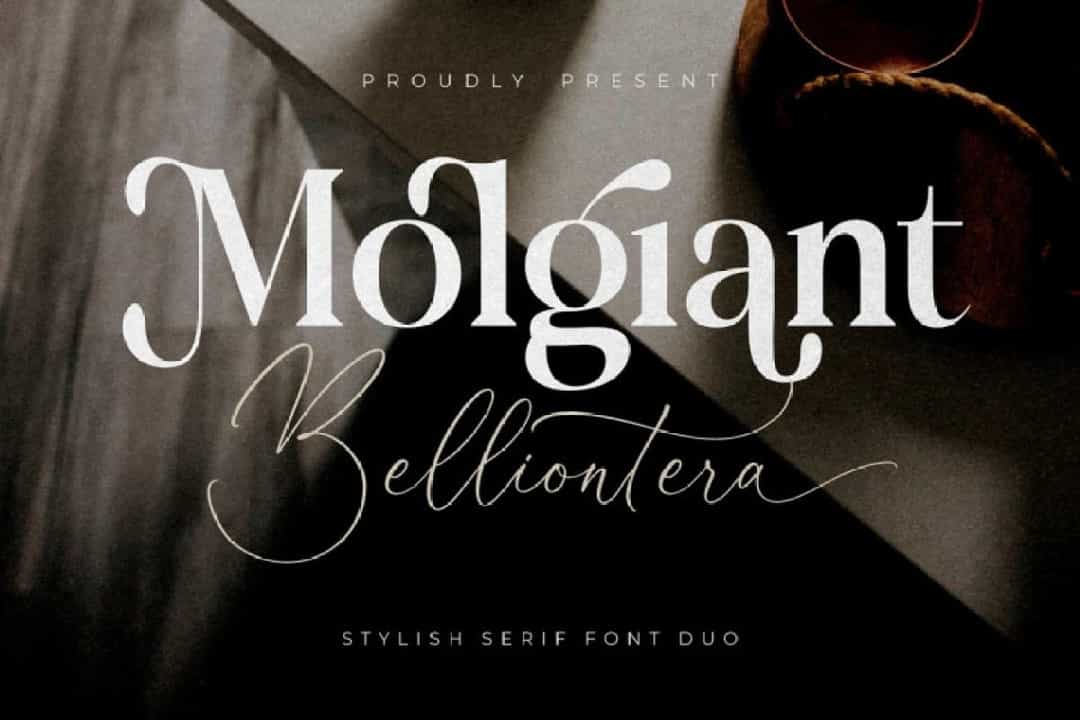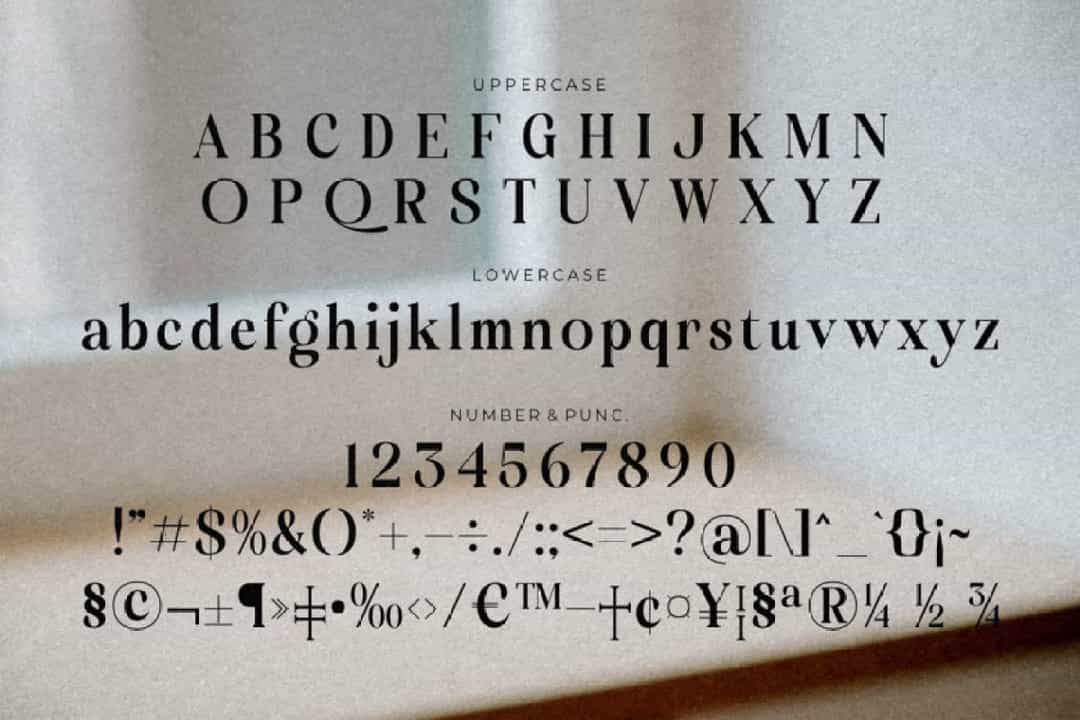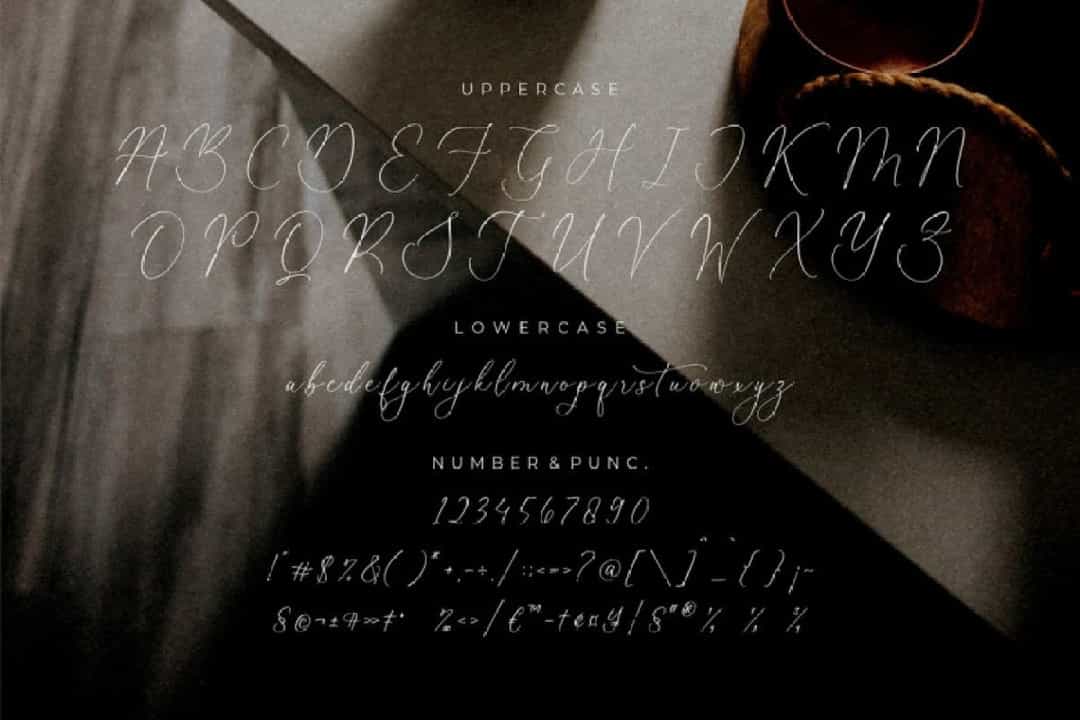
Discover Molgiant Belliontera Font, part of the Handwritten Serif collection—a versatile and unique font perfect for adding a personal touch to your projects. Download it for free and enjoy crafting designs with style, from invitations to social media posts. This font is available exclusively for personal use, giving you the freedom to create without limits. Unlock your creativity with Molgiant Belliontera Font today!
Molgiant Belliontera Font Duo is a script and serif font that stands out with its distinct style and contemporary appearance, perfect for creating classy logos, movie or book covers, clothing brand designs, magazine letters and quotes among other uses.